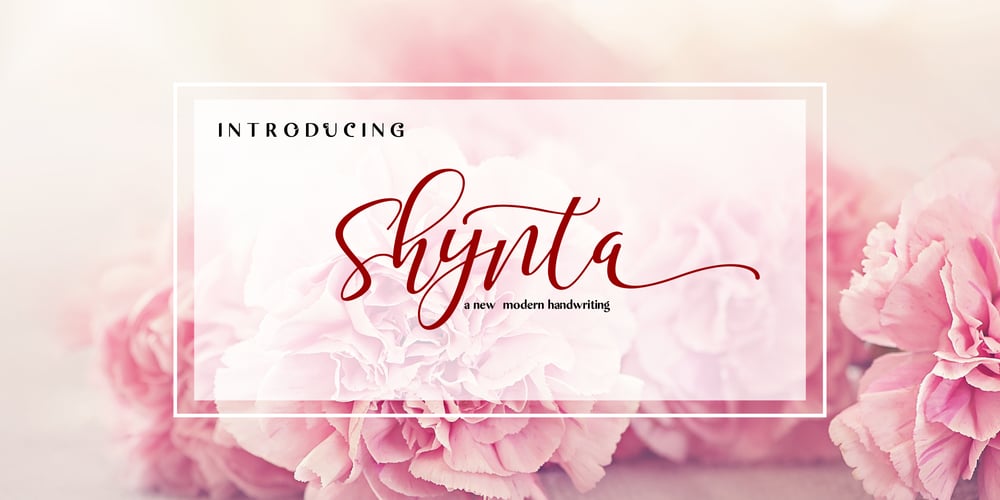
Shynta Font Family was designed by Murtadha bin Sulaiman and published by Malindo Creative. Shynta contains 1 styles and family package options. Shynta is a modern hand-based typography, This font is made up of irregularly flowing letters, both between top-down and with subsequent letters, which makes it suitable for Logotype, posters, businness cards, merchandise, wedding invitations, greeting cards, banners blogs, clothing, water-based paint designs / prints, correspondence, quotes and more!This Font Equipped:-Uppercase-Lowercase-Figures & Punctuation-Accented-Stylistic Alternatives-Ligatures-Additional currency symbolsTo enable the OpenType Stylistic alternates, you need a program that supports OpenType features such as Adobe Indesign, Adobe Illustrator CS & CorelDraw X6-X7, Microsoft Word 2010 or later versions.-This font is PUA encoded which means you can access all of the glyphs and swashes with ease!-If you have any questions, please contact me at. malindocreative@gmail.com.-Thanks for Support-Feel free to contact me if you have any questions, I am happy to help you.